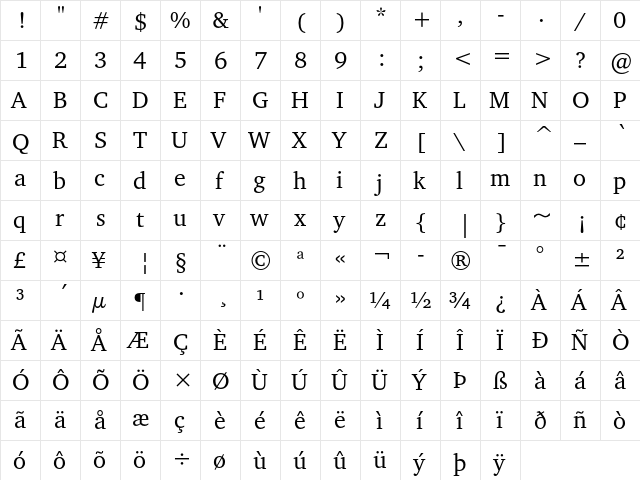
CharterITC Regular
| Foundry | ParaType Inc. |
| Designer | Matthew Carter, Vladimir Yefimov |
Design Context for CharterITC Typeface
CharterITC takes a measured approach to typography — its balanced proportions and neutral character make it a reliable workhorse for both digital and print work.